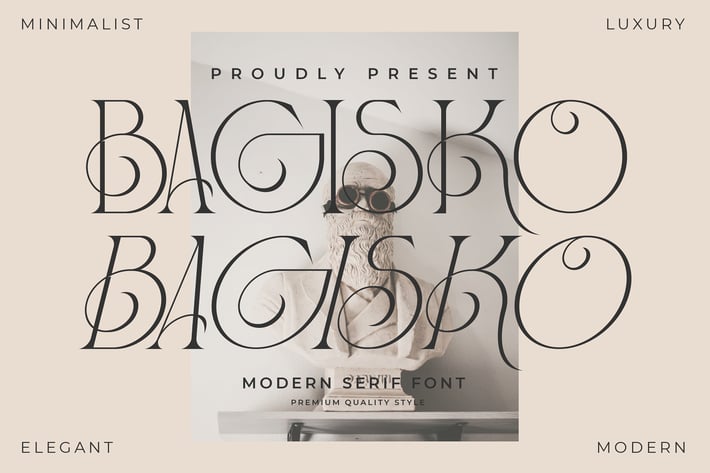
Bagisko Modern Serif Font
Bagisko Modern Serif is an elegant and luxurious serif font that blends modern minimalism with a timeless sense of sophistication. With its unique letterforms and high-contrast strokes, this font is perfect for projects that aim to capture both refinement and bold creativity.
+ Modern serif design with stylish ligatures
+ Perfect balance of minimalism and luxury
+ Luxury branding & logos
+ Editorial design & magazines
+ Fashion and beauty projects
+ Packaging & product labels
+ Invitations & stationery
+ High-end advertising
Elevate your designs with Bagisko — a modern serif font that embodies elegance, luxury, and timeless sophistication.